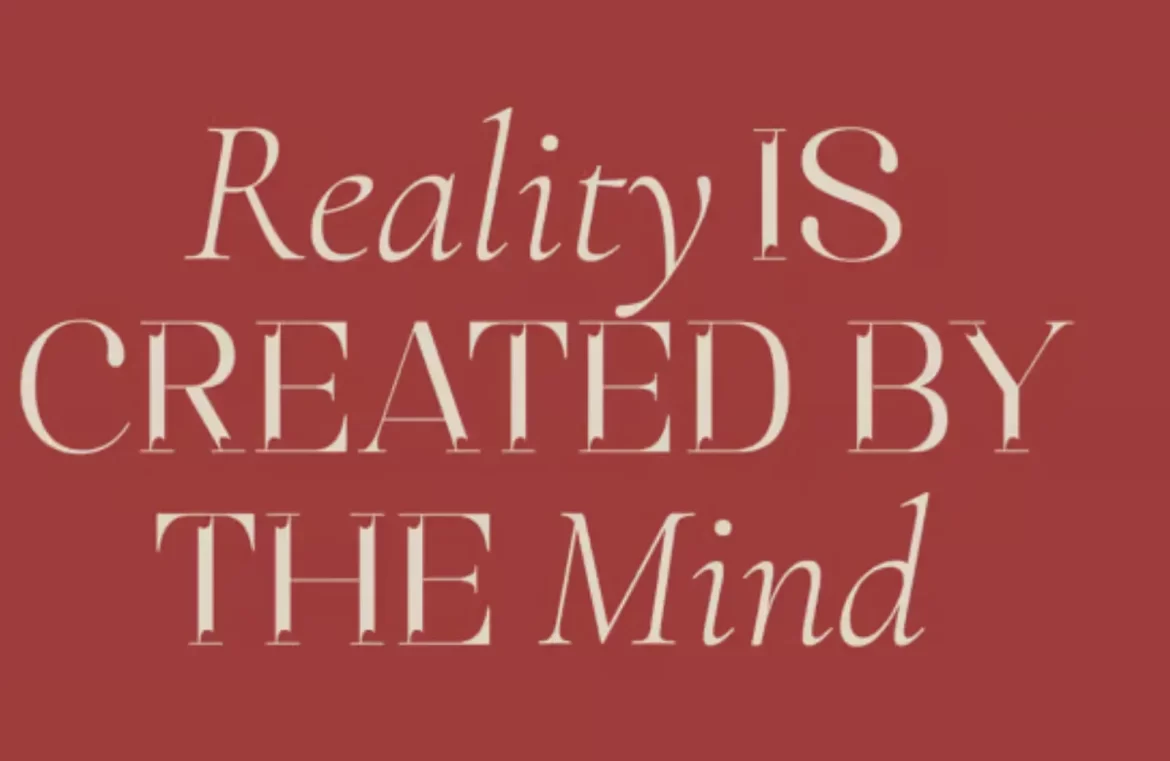
For creative minds, typography is a medium of endless opportunities. Fonts are tools that infuse character and distinction into our creations, lifting the art of design to new heights.
Our monthly collection showcases the finest new fonts debuted in the past month. This April’s compilation includes a series of revived classics, each with a contemporary edge to them. Delight in the collection!
Spring Grove Sans
Spring Grove Sans is a clear-cut sans-serif featuring pronounced geometric forms coupled with humanistic tones that mitigate its rigidness. With its expansive weight options, variable font edition, and a complementary serif, it stands out as a prime contender for corporate branding.
Zambeza Script
Zambeza Script is a display font with vintage poster undertones. It boasts of smooth, flowing letter structures that come together to craft gorgeous word formations—ideal for the hospitality industry’s branding purposes.
Comic Gradient
Comic Gradient strides the line between a straightforward sans and a scripted font, round terminals impart a welcoming aesthetic, and its geometrical consistency in diagonals strikes a distinctive note.
Gamuth Serif
Gamuth Serif showcases two optical sizes—text and display—boasting a condensed width and towering x-height, that enables dense, impactful blocks of text—perfect for magazine or book design.
Riegla Serif & Riegraf Sans
Riegla Serif & Riegraf Sans present a pair of correlated typefaces. Riegla is a sans-serif with traces of early 19th-century influence. Riegraf dons the same base to craft a geometric serif with distinct clarity.
Ginka Typeface
Ginka Typeface reimagines the modern sans serif with exaggerated ink traps and oversized punctuation, lending it a playful yet sophisticated demeanor suitable for both text and display use.
Abstract Sans
Abstract Sans pays homage to the early digital era of the ‘60s to the ‘80s with its pronounced curvature, exuding a digitally inspired lettering style when used in volume.
Qimoe Slab
Qimoe Slab is a striking serif display font with creative cut-outs that lend a three-dimensional essence to its characters.
Right Slab Serif
Right Slab Serif is a distinctive slab serif with a broad selection of weights uncommon for a type of Egyptian lineage, offering immense versatility for branding and publishing.
Picaresk Sans
Picaresk Sans is a sans serif with bold contrast reminiscent of the 1990s vibe. Evolving from 19th-century slab serifs and stripping away the serifs, it delivers a highly readable type selection for display text.
Manly Moustache
Manly Moustache sports a robust, authoritative form, especially in its heavier weights, making it a perfect match for logos desiring a clean yet non-geometric aesthetic.
Mística Typeface
Mística Typeface is a caps-only display font infused with a retro allure. Born from American South Western spirit, it also exudes a vibe that would not be out of place in Mediterranean destinations.
Xperiment Sans Serif
Xperiment Sans Serif flaunts a fresh design with distinctive slanted lines, endowing the font with a singular presence—suitable for both branding projects and editorial aesthetics.
Sacred Serif
Sacred Serif is a dynamic serif font distinguished by its pronounced serifs, yielding a sharp, lively vibe. Drawing from hand-painted signage, it allows for the creation of striking textual art.
Digital Era Sans
Digital Era Sans is a versatile geometric sans serif offered in seven weights and as a variable font, equipped to tackle a vast array of design tasks with poise and finesse.